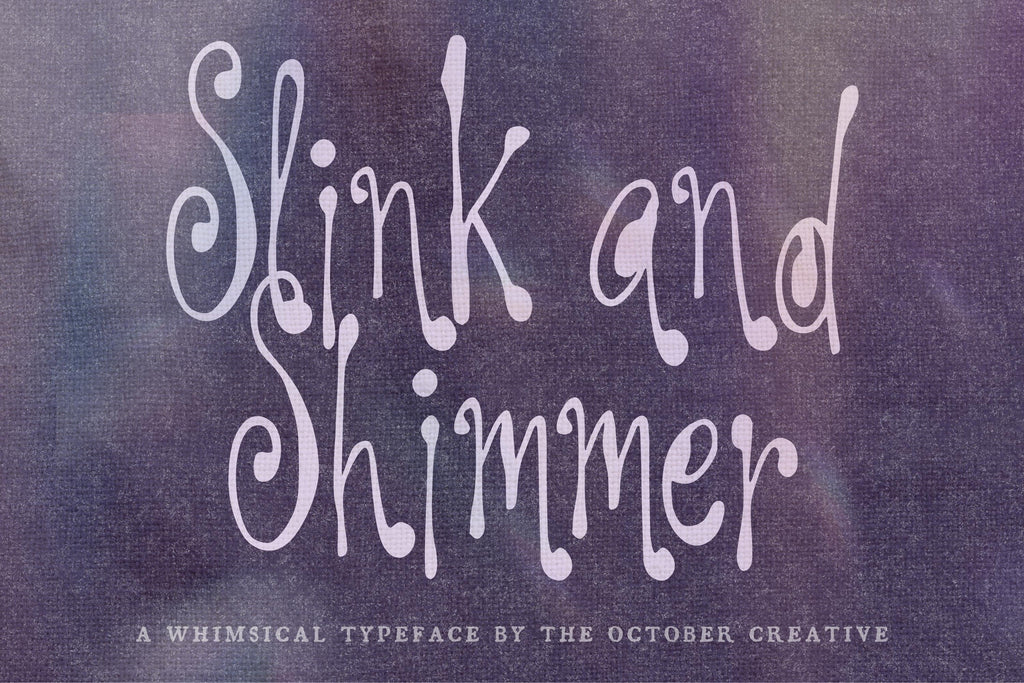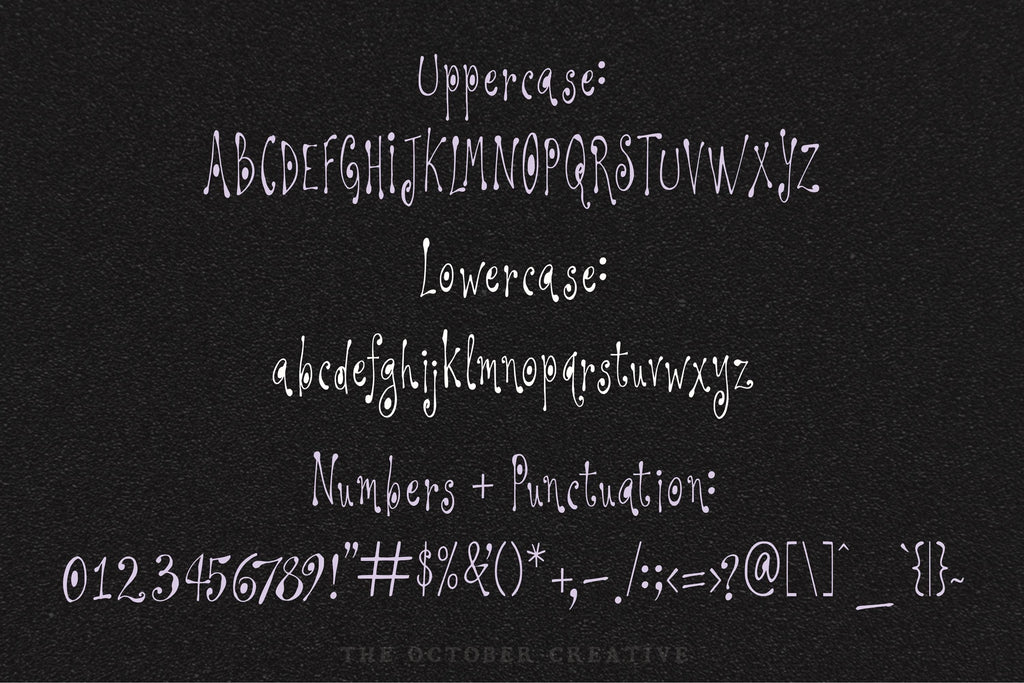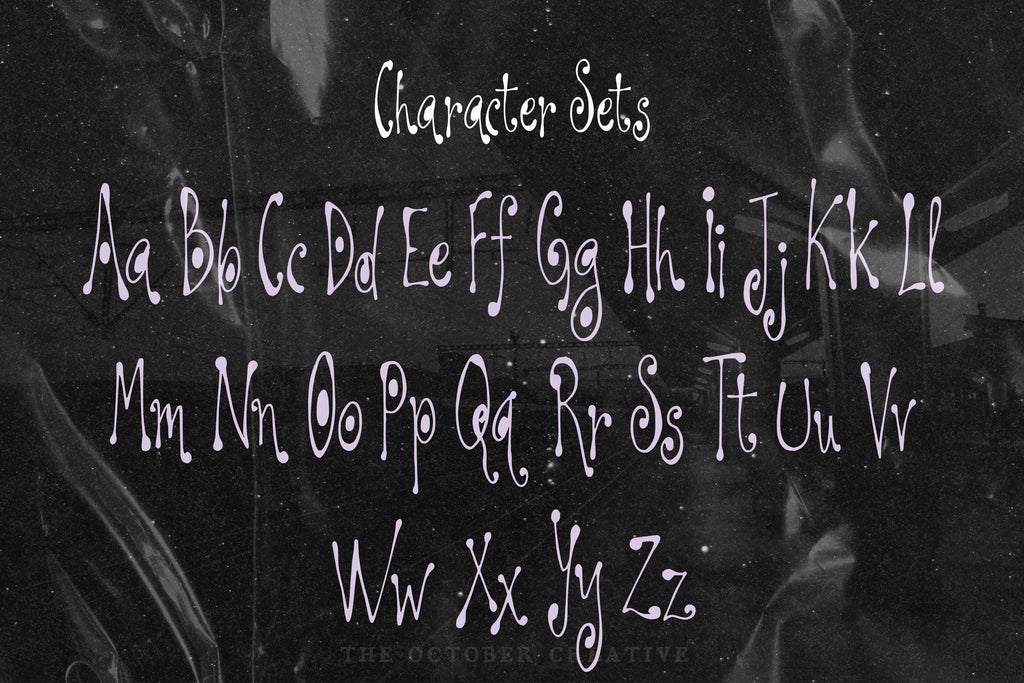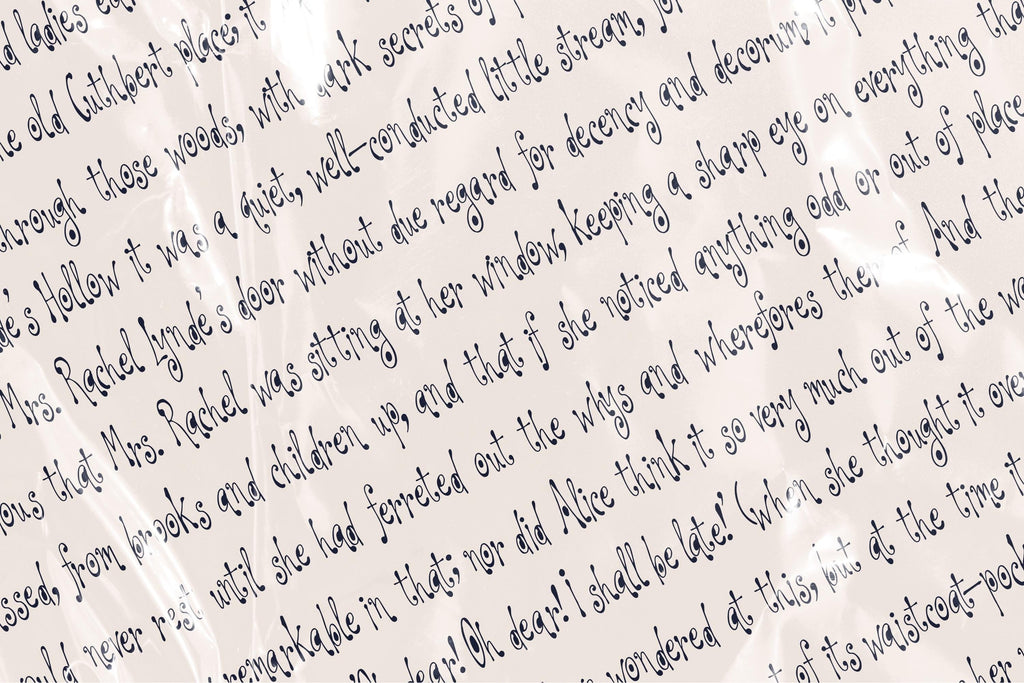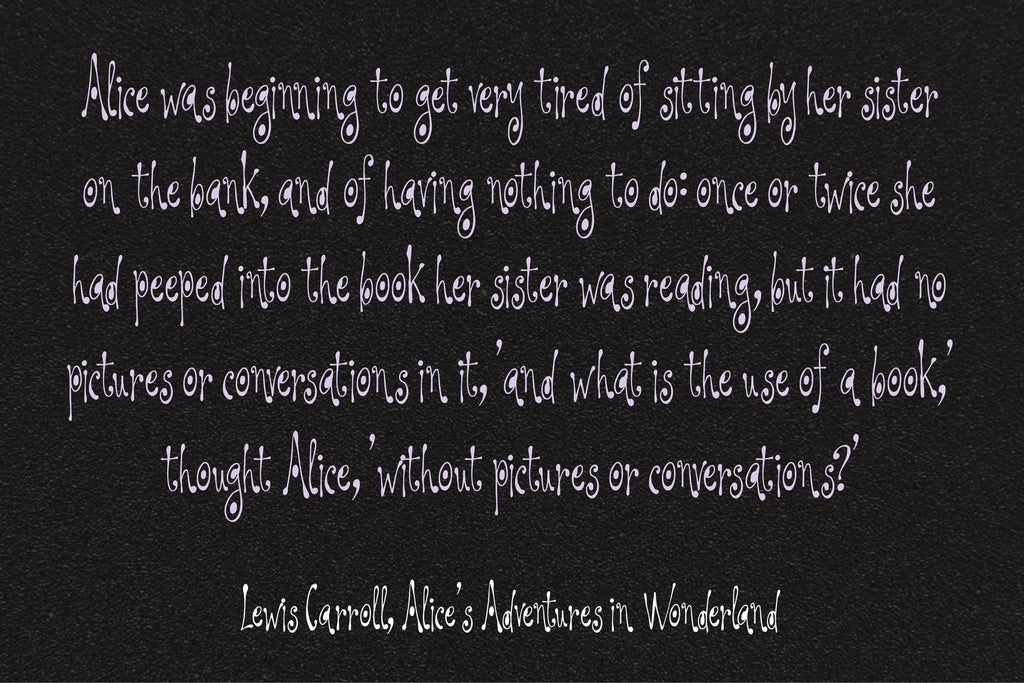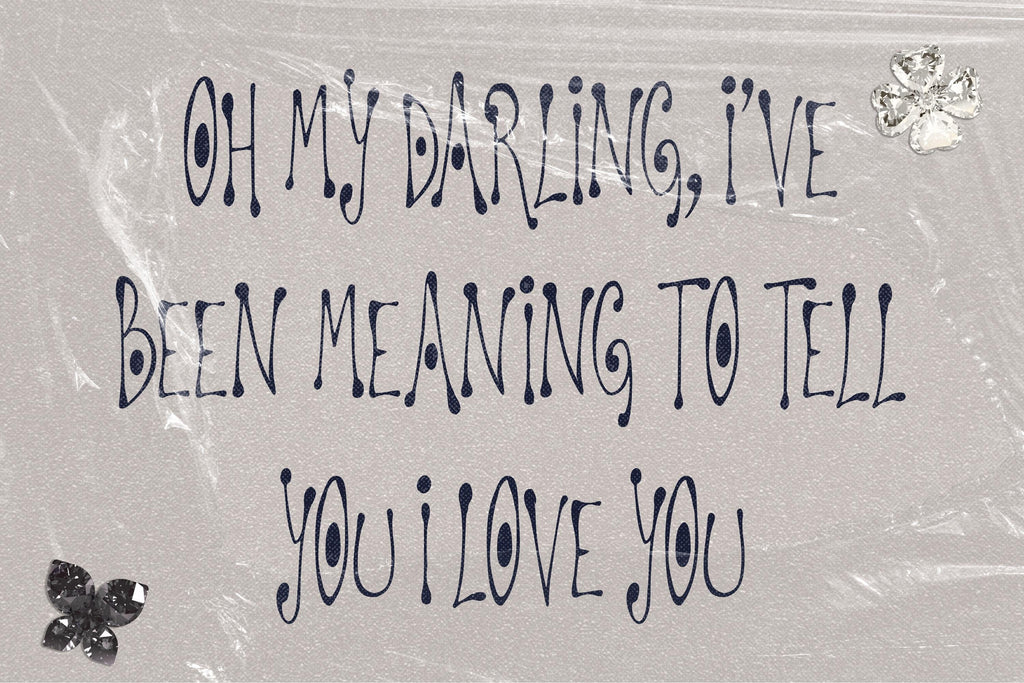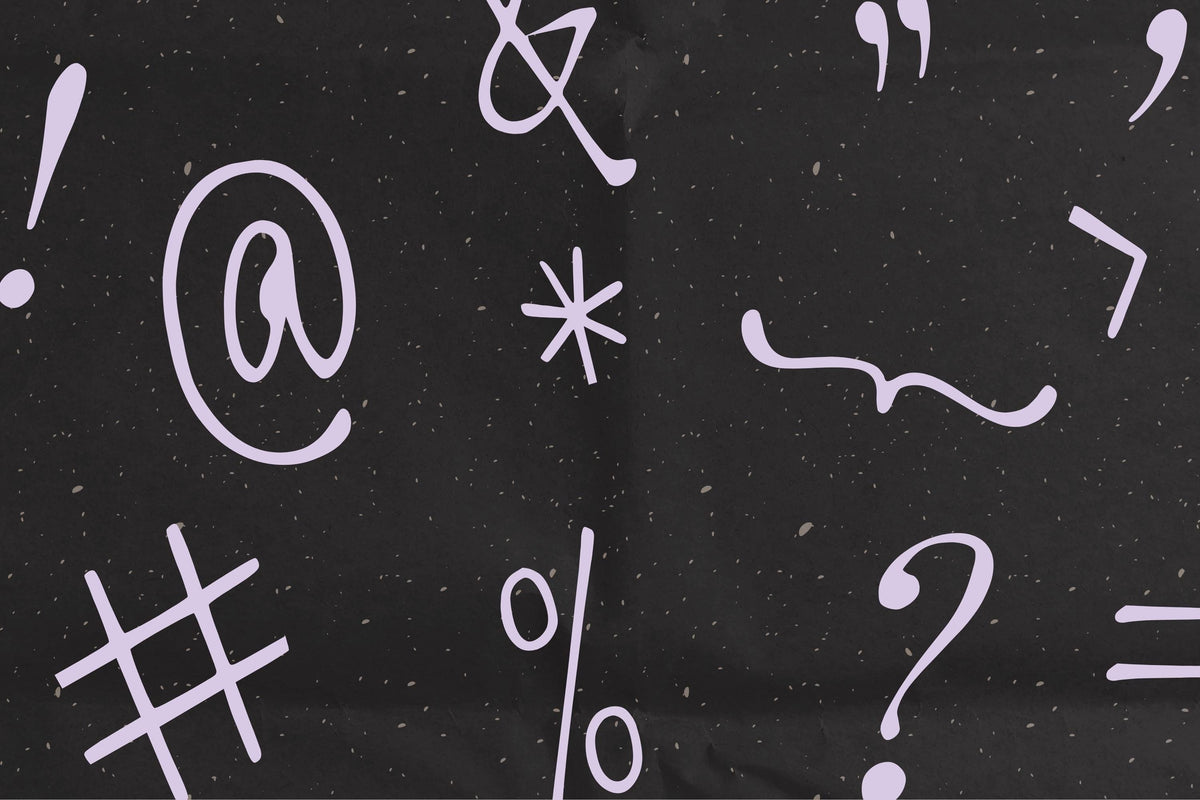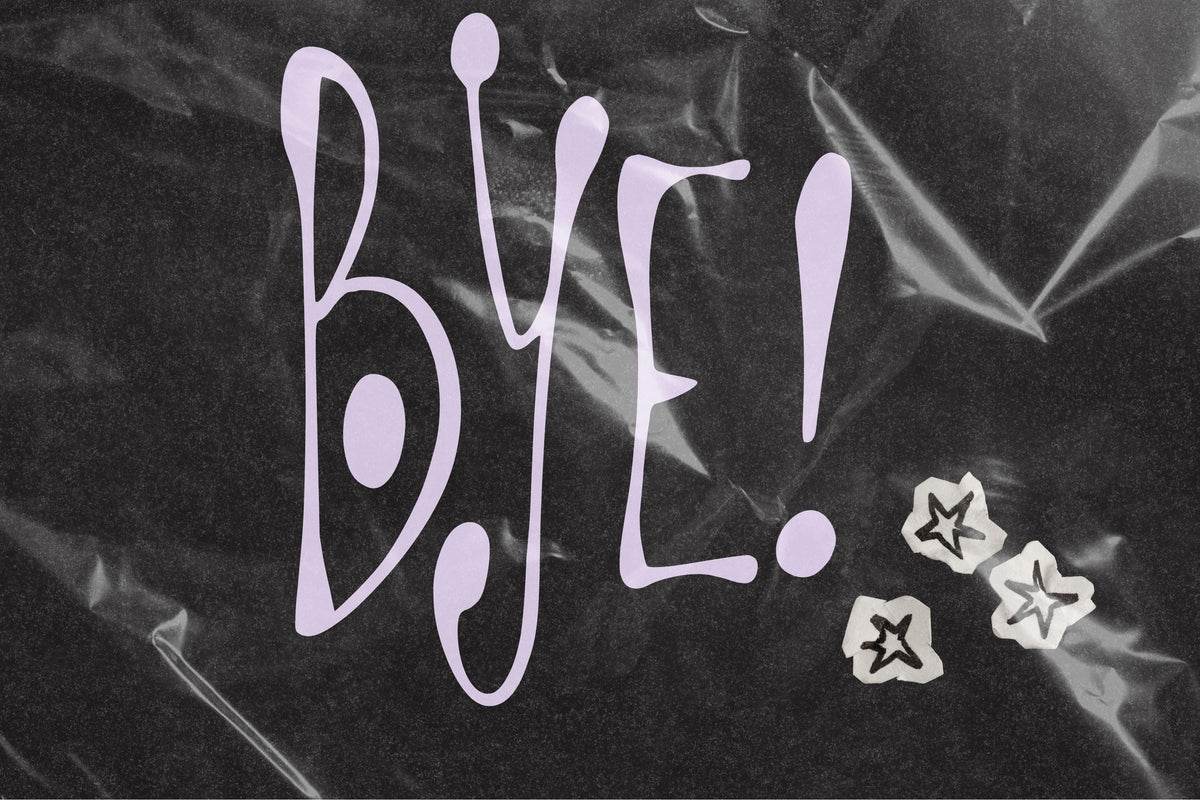
Slink and Shimmer Font
Slink and Shimmer gives your words a playful rise and dip, with little curls along the way. It's a charming choice for cocktail party invitations, drinks menus, and place cards for an evening with your favorite people.